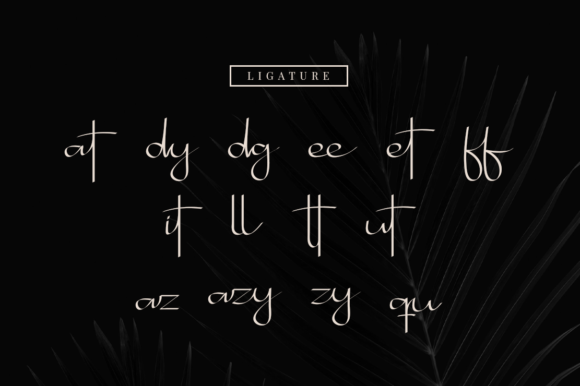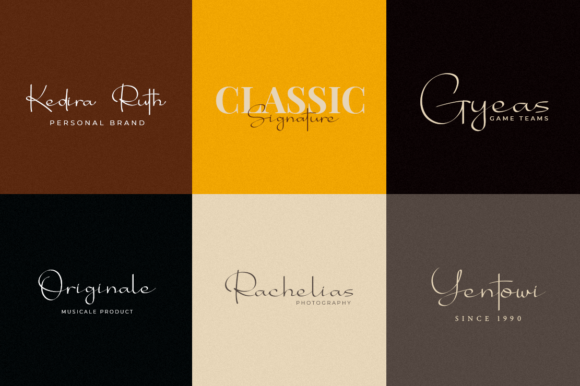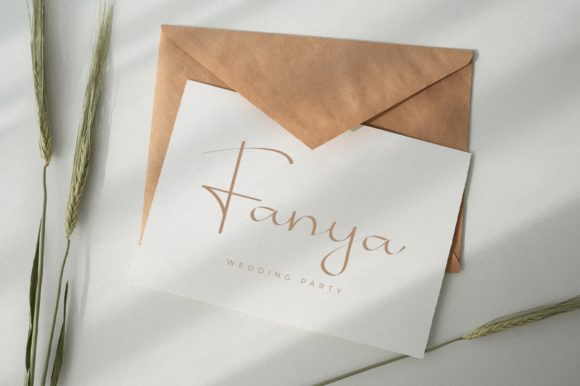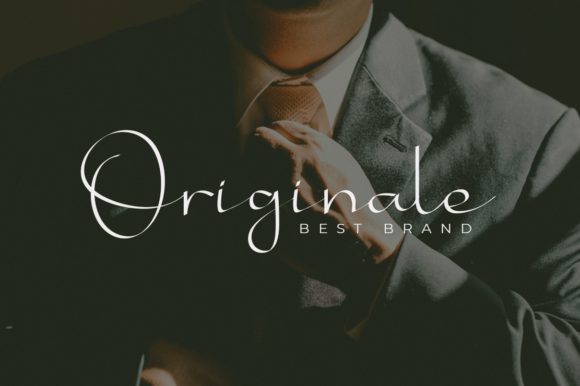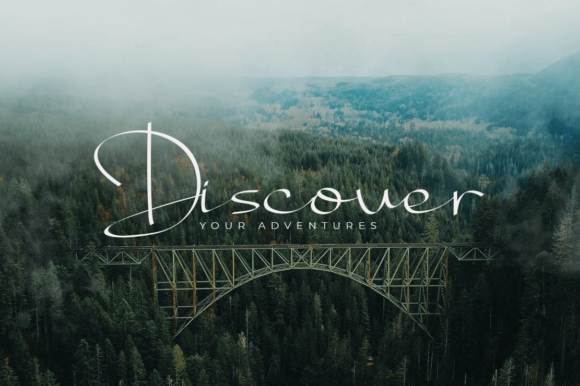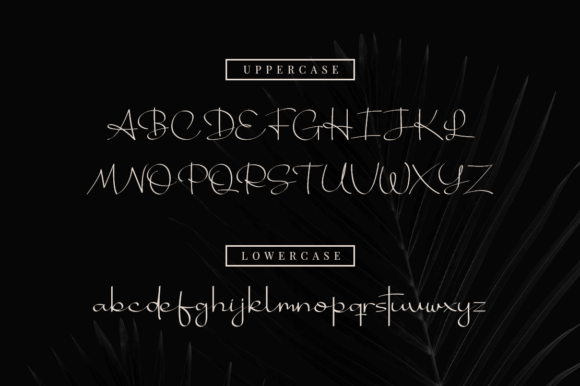
The Magic of Handwritten Typography: Unveiling Bhotten Script Font
Have you ever found yourself rummaging through your journal, searching for the perfect phrase to capture a moment that’s too beautiful to forget? Perhaps it’s a quote from your favorite book, a love letter to a dear friend, or a simple “I love you” scribbled in the margins of a favorite recipe. Whatever it is, there’s something undeniably special about handwritten words that can evoke emotions and spark creativity.
Enter Bhotten Script Font, a beautifully crafted script font designed to bring a touch of elegance to your creative endeavors. Whether you’re a designer, artist, or simply someone who loves to express themselves through words, this enchanting font is sure to captivate your imagination. With its versatility and sophistication, Bhotten Script Font is an invaluable asset for designers looking to add a personal touch to their projects.
Bhotten Script Font Key Features
- Font Family: Bhotten Script
- Unique Characteristics: Elegant, cursive script font with a vintage feel, ideal for invitations, wedding stationery, and other formal events
Bhotten Script Font Review
I’ve had the chance to work with the Bhotten Script Font, and I’m excited to share my honest review with you. This font has some fantastic features that make it a great addition to any design project.
- The elegant and refined feel of the font is perfect for creating a luxurious and high-end look.
- The unique letterforms and flourishes add a touch of sophistication and whimsy to your design.
- The font is highly customizable, allowing you to adjust the size, color, and spacing to suit your needs.
- The font may be too ornate for some designs, which can make it difficult to read in certain contexts.
- The font is not suitable for body text, as it can be too visually heavy and overwhelming.
- The font does not include a wide range of language support, which may limit its use for multilingual designs.
Overall, I think the Bhotten Script Font is a great choice for designers looking to add a touch of elegance and sophistication to their work. However, it’s essential to consider the limitations and use it judiciously to avoid overwhelming your audience. With the right design and context, this font can be a real showstopper.
For best results, use the Bhotten Script font for titles, headings, and emphasis.
Use the Bhotten Script font for creative typography and visual interest.
Use the Bhotten Script font for titles, headings, and emphasis in presentations and documents.
The Bhotten Script font is ideal for creative and artistic projects, such as:
Invitations, posters, and flyers.
Wedding and event designs.
Personalized stationery and gift tags.
Remember to use the Bhotten Script font in moderation to avoid overwhelming the design.
Alternatives to Bhotten Script Font
Pacifico is a beautiful, elegant script font that is perfect for creating a luxurious and sophisticated look. It features a mix of modern and traditional elements, making it suitable for a wide range of designs, from wedding invitations to fashion magazines.
Compared to Bhotten Script Font, Pacifico is more refined and polished, with a more subtle flair. While Bhotten Script Font has a more playful and whimsical feel, Pacifico is better suited for high-end designs that require a touch of sophistication.
Great Vibes is a modern script font that is perfect for creating a fun and energetic look. It features a bold and dynamic feel, making it suitable for designs such as posters, advertisements, and social media graphics.
Compared to Bhotten Script Font, Great Vibes is more energetic and playful, with a bolder and more expressive feel. While Bhotten Script Font is better suited for elegant and sophisticated designs, Great Vibes is perfect for designs that require a touch of fun and creativity.
Alex Brush is a elegant and refined script font that is perfect for creating a luxurious and sophisticated look. It features a mix of modern and traditional elements, making it suitable for a wide range of designs, from wedding invitations to fashion magazines.